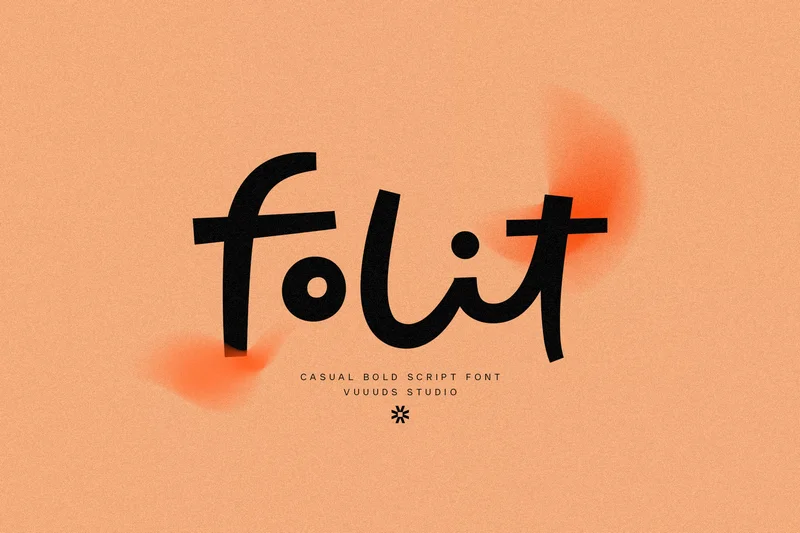
Folit
Introducing Folit Font!
A highly versatile and impactful script typeface that offers a perfect balance of bold weight and casual, dynamic handwriting. Ideal for logos, posters, and branding that requires confident, expressive warmth and maximum visibility.